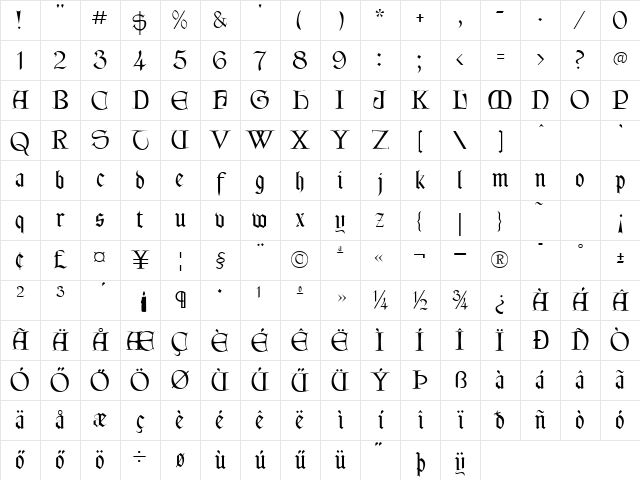
Huni_Lettw Regular
Design Context for Huni_Lettw
Huni_Lettw is a composed and adaptable typeface that performs quietly and consistently across a wide range of design contexts.